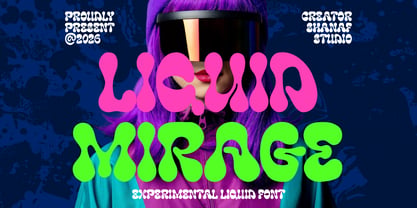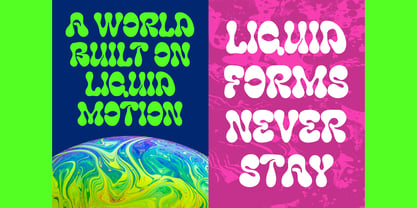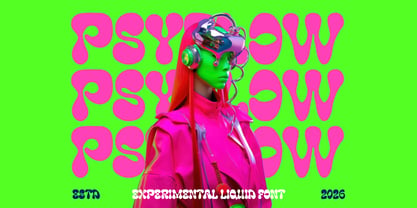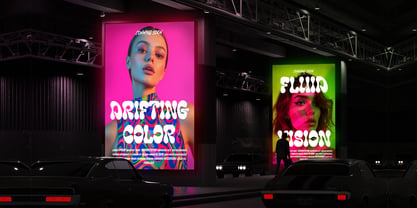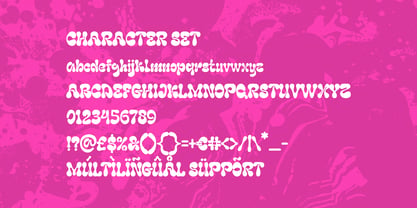
Liquid Mirage
von Shanaf
Die Schriftfamilie Liquid Mirage wurde von Yesie Erma Yunita entworfen und von Shanaf veröffentlicht. Liquid Mirage enthält 1 Stile. Mehr über diese Familie
Liquid Mirage Psychedelic Style Font delivers flowing letterforms inspired by liquid motion and retro experimental typography. The characters feature thick rounded strokes, melting curves, soft edges, and bulb-like terminals that create a dynamic psychedelic rhythm. Each glyph carries a playful structure with organic shapes that feel fluid and energetic. The font combines retro groovy influence with futuristic visual direction, making headlines appear bold and expressive. Wide proportions and inflated forms increase readability while keeping the typography unconventional and artistic. This font works perfectly for music branding, nightclub visuals, creative studio logos, festival posters, beverage packaging, entertainment campaigns, and retro-inspired product identities. Use it for logos, branding, album covers, posters, magazine titles, stickers, social media graphics, advertisements, invitations, film titles, book covers, and experimental creative projects that demand visual impact.
Liquid Mirage Psychedelic Style Font fits modern retro aesthetics with strong influences from psychedelic culture and liquid typography trends. The character construction feels soft, immersive, and surreal while maintaining balanced spacing for display compositions. Rounded counters and flowing silhouettes create movement across every word, giving layouts a hypnotic visual effect. This style matches themes such as retro futurism, cosmic art, rave culture, synthwave design, creative entertainment, electronic music, nightlife branding, and experimental media campaigns. The font performs strongly in large headline settings where expressive typography becomes the center of attention. It also suits café branding, beverage labels, candy packaging, creative events, gaming posters, digital artwork, and artistic promotional materials. Pair it with minimalist layouts or bold visuals to create memorable retro-inspired branding systems.
Designer: Yesie Erma Yunita
Foundry: Shanaf